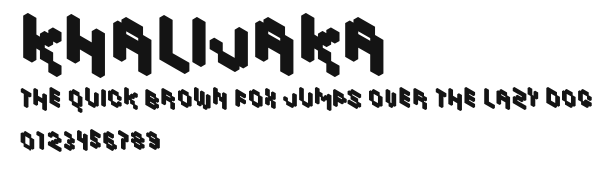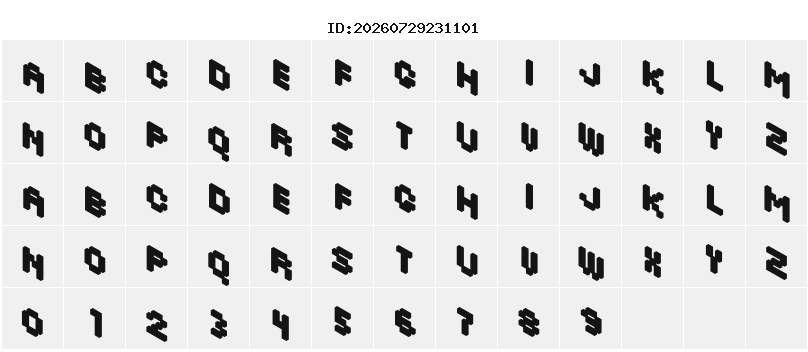
Khalijaka Preview
• Font Name: Khalijaka
• Font Style: Black
• Font ID: Khalijaka
• Full Font Name: Khalijaka Black
• Version: Jan Novak 02 2007
• PostScript Name: Khalijaka-Black
• Character Count: 122
• Designer: Jan Novák
About Khalijaka.ttf